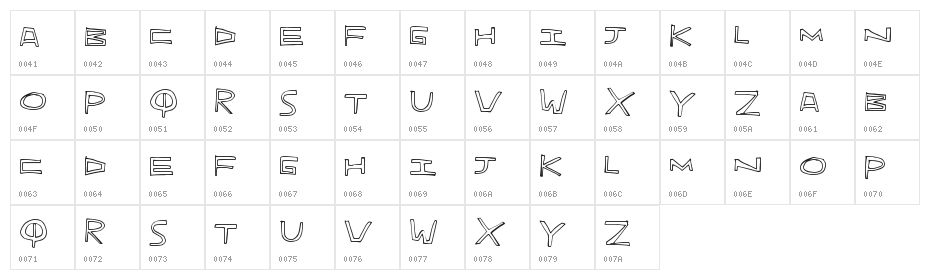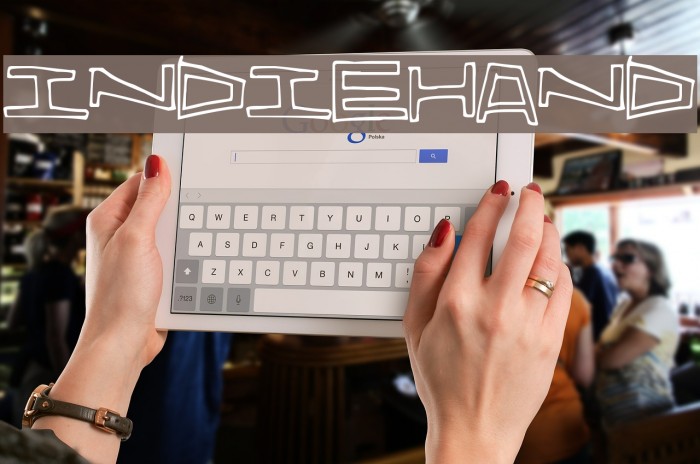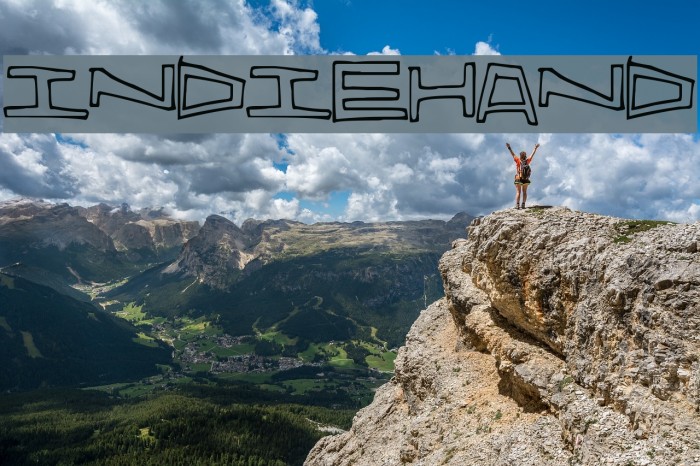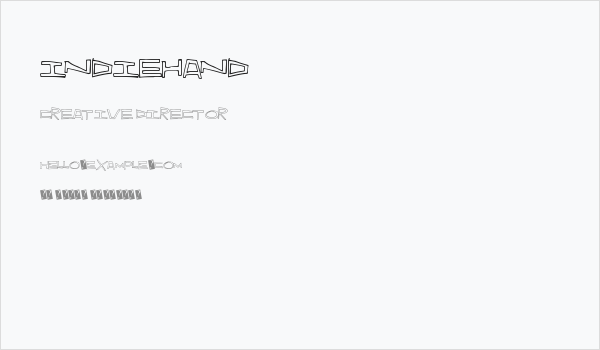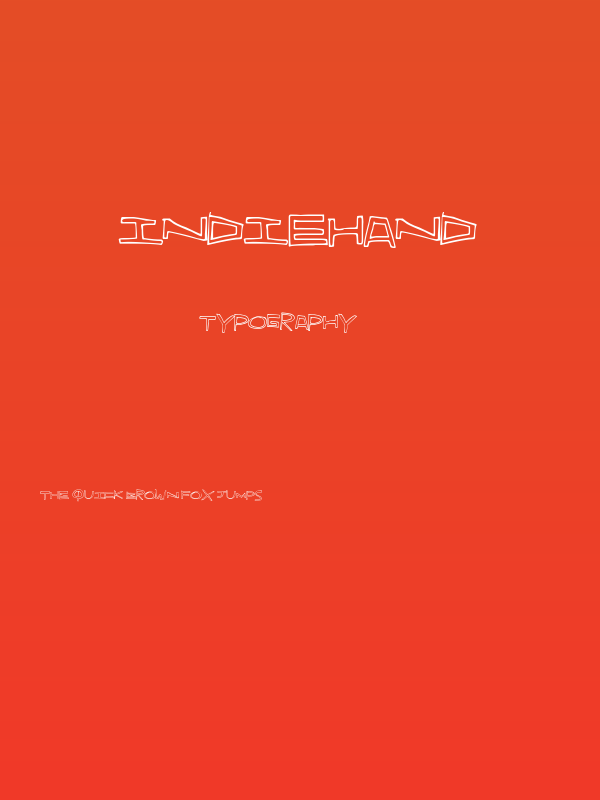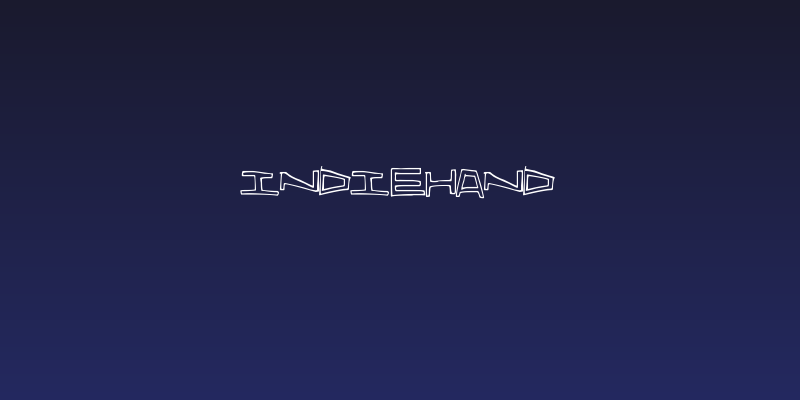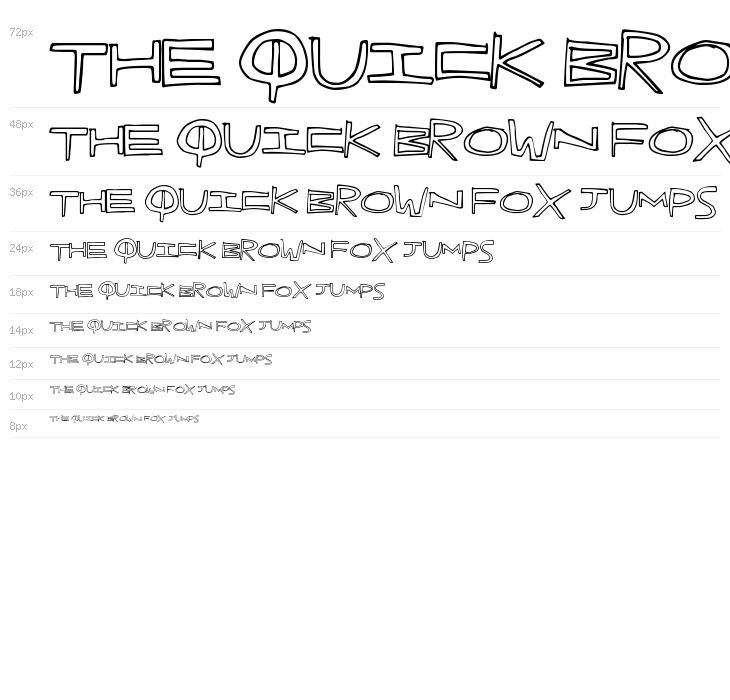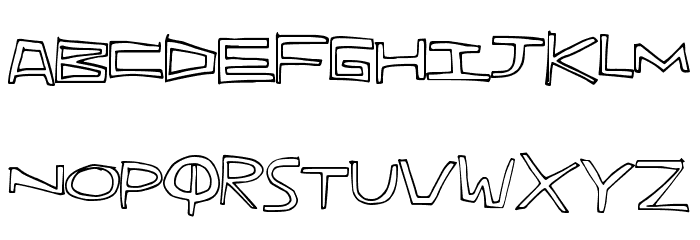
IndieHand Font
IndieHand Description
This font exhibits a playful and quirky handwritten style, characterized by its irregular and slightly wavy lines. The letters have a casual, informal appearance, with a mix of sharp angles and rounded edges that give it a unique personality. The uppercase and lowercase letters maintain a consistent style, with the uppercase being slightly more structured. The font's overall look is reminiscent of doodles or sketches, making it ideal for projects that require a personal touch. The characters are evenly spaced, ensuring readability while maintaining the font's distinctive charm.